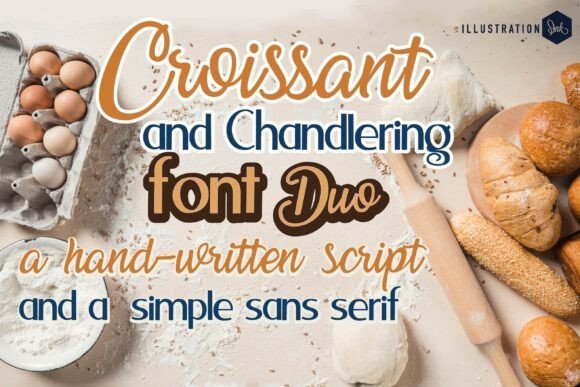
Croissant & Chandlering is a charming and deliciously styled font duo that blends a warm handwritten script with a clean, simple sans serif.
The Croissant script flows like icing on a fresh pastry, while Chandlering adds clarity and contrast with its neat, modern appealβ€”perfect for bakery branding, food blogs, recipe cards, and cafΓ© menus This pairing is ideal for any project that needs a cozy, homemade vibe with a professional finish.